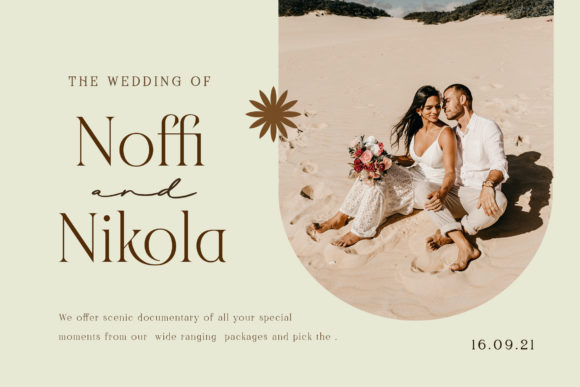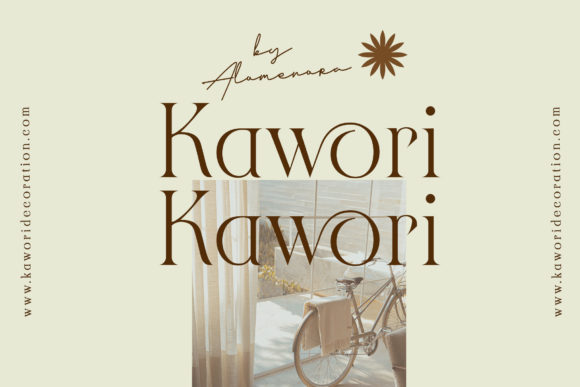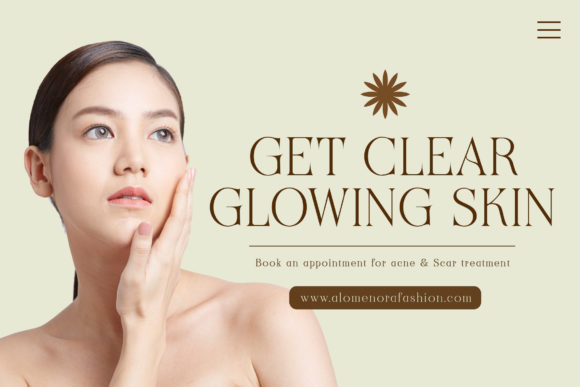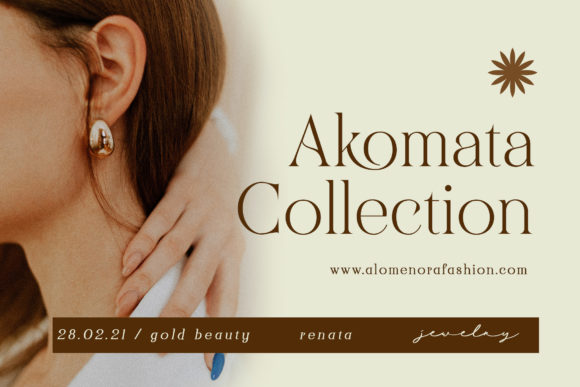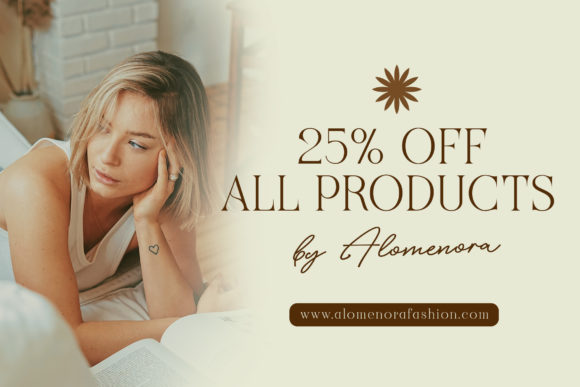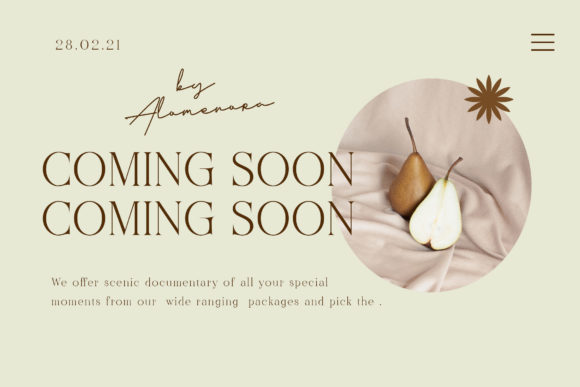
Introducing Avokovie Font: Elevate Your Designs with Elegance and Sophistication
Are you on the hunt for a font that exudes luxury, elegance, and sophistication? Look no further than Avokovie Font, a stunning serif font that is sure to take your designs to the next level. With its beautiful ligatures and classic charm, Avokovie is the perfect choice for designers and crafters looking to create stunning typography designs that leave a lasting impression.
What Makes Avokovie Font So Special?
Avokovie Font is a beautifully crafted serif font that boasts an air of elegance and refinement. Its classic design makes it perfect for a wide range of applications, from luxury logos and branding to editorial design, magazines, and more. One of the standout features of Avokovie is its ligatures, which allow you to combine letters to create a seamless and sophisticated look. Whether you’re designing a logo, brochure, or website, Avokovie Font provides the perfect foundation for creating stunning typography designs.
Endless Design Possibilities with Avokovie Font
The versatility of Avokovie Font is one of its greatest strengths. This gorgeous font can be used in a multitude of design projects, including:
- Luxury logos and branding: Create a lasting impression with Avokovie’s elegant and sophisticated design.
- Classy editorial design: Elevate your publications with Avokovie’s refined and classic charm.
- Woman magazines: Add a touch of femininity and elegance to your magazine designs.
- Cosmetic brands: Convey luxury and sophistication with Avokovie’s beautiful design.
- Fashion promotions: Make a statement with Avokovie’s stylish and elegant font.
- Art gallery branding: Showcase your art with a font that exudes refinement and culture.
- Museums: Add a touch of elegance to your museum branding and marketing materials.
- Historical or architectural digest: Convey a sense of tradition and sophistication with Avokovie.
- Boutique branding: Create a luxurious and exclusive feel with Avokovie’s beautiful design.
- Stationery design: Elevate your stationery with Avokovie’s classic and elegant font.
- Blog design: Add a touch of sophistication to your blog with Avokovie’s refined design.
- Modern advertising design: Make a statement with Avokovie’s stylish and elegant font.
- Card invitations: Create beautiful and elegant invitations with Avokovie.
- Art quotes: Showcase your art with a font that exudes refinement and culture.
- Home decor: Add a touch of elegance to your home decor designs.
- Book/cover titles: Create stunning book titles with Avokovie’s beautiful design.
- Special events: Make your special events unforgettable with Avokovie’s elegant font.
Why Choose Avokovie Font?
With so many fonts available, why choose Avokovie? Here are just a few reasons why Avokovie Font stands out from the crowd:
- Elegance and sophistication: Avokovie exudes luxury and refinement, making it perfect for high-end designs.
- Versatility: Avokovie can be used in a wide range of design projects, from logos and branding to editorial design and more.
- Ligatures: Avokovie’s ligatures allow you to create seamless and sophisticated typography designs.
Get Ready to Elevate Your Designs with Avokovie Font